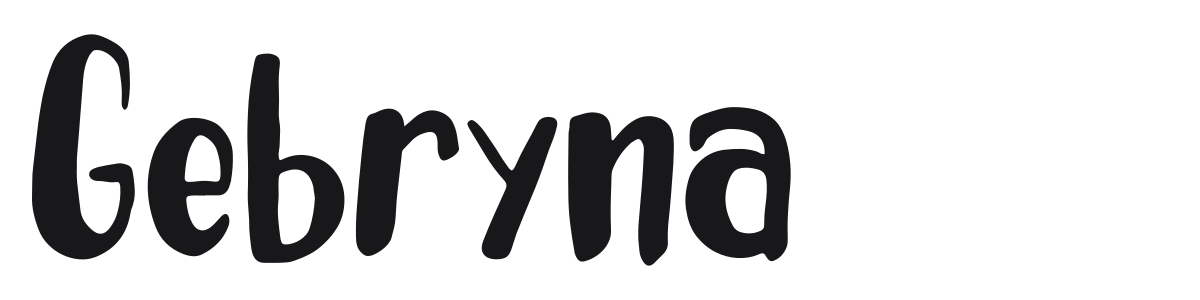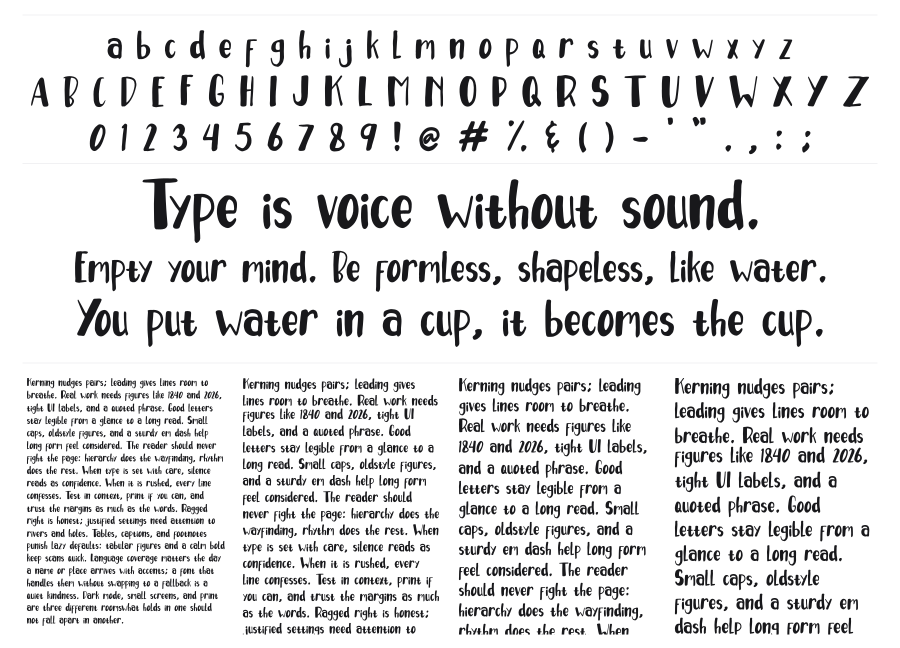
Gebryna
Gebryna is a bold, casual hand-lettered font with thick rounded strokes and a relaxed, marker-drawn feel. The slight irregularity in letterforms and baseline gives it genuine handmade warmth without looking sloppy. It works well for brand names, packaging, and any headline that needs to feel approachable and fun.